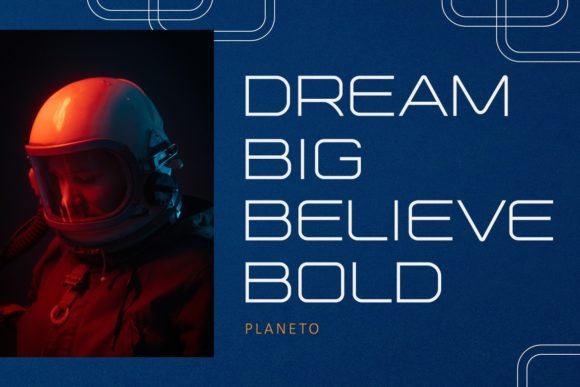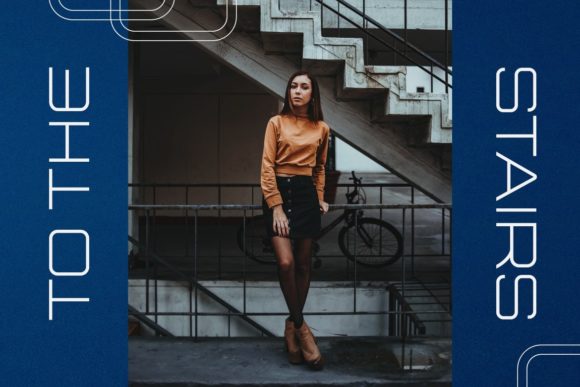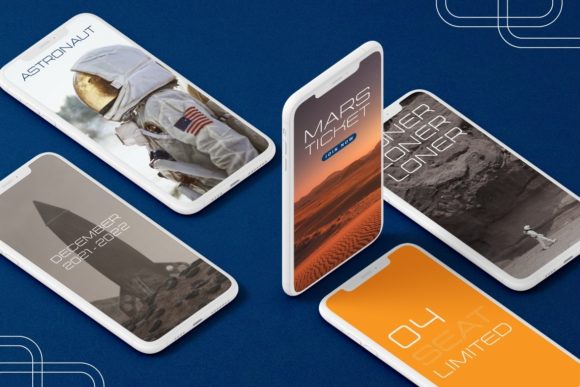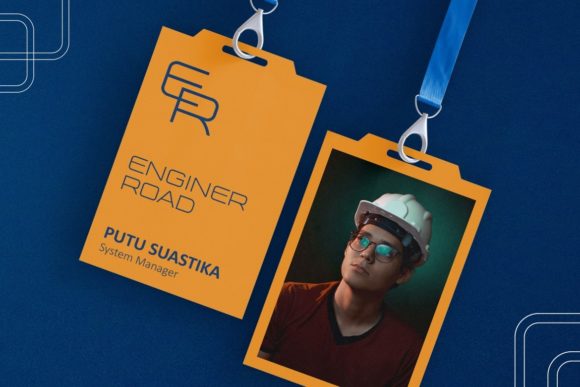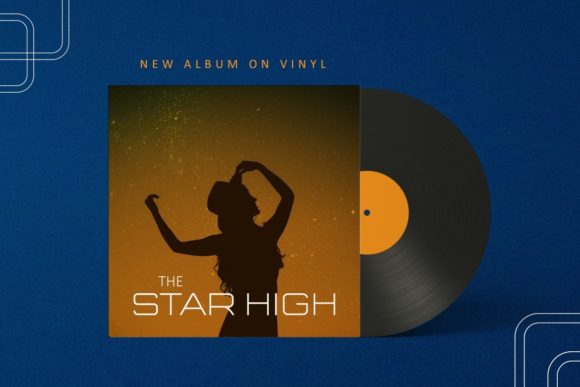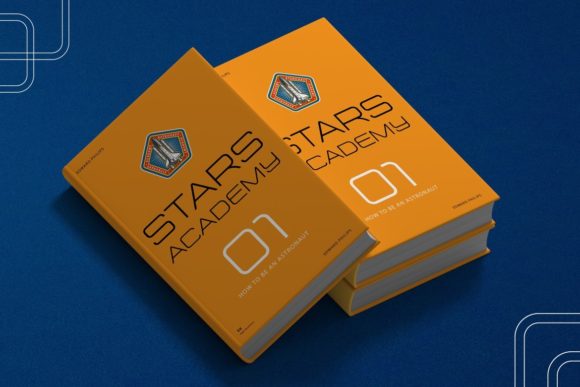
Introduction to Planeto Font
You’ve got that perfect idea for a creative project, and you can almost see it come to life in your mind’s eye. But the one thing holding you back is the perfect font to bring it all together. A good font can make all the difference, elevating your design from ordinary to extraordinary.
That’s where the Planeto Font comes in – a modern and neat sans serif font that’s perfect for just about any project. Whether you’re working on a logo, a brochure, or even a website, Planeto Font is a versatile and high-quality design resource that’s sure to impress.
With its clean lines and transparent background, Planeto Font is the perfect choice for designers who want to create something truly unique and eye-catching. And the best part? It’s available for free download, making it an invaluable resource for anyone looking to take their creative project to the next level.
Key Features of Planeto Font
- High-quality, vector-based design resource ideal for creative projects requiring intricate details.
- Transparent background allows for effortless background replacement and customization.
- Features a unique blend of futuristic and minimalist elements, perfect for adding a touch of modernity to any design project.
- Supports a wide range of languages, including Latin, Cyrillic, and Greek alphabets, making it a versatile font for global audiences.
Honest Review: Planeto Font
As a designer, I’m always on the lookout for high-quality design resources to elevate my creative projects. Recently, I stumbled upon the Planeto Font, and I’m excited to share my honest review with you.
What works well: ✨ The Planeto Font is a stunning addition to any design project. Its unique blend of futuristic and minimalist elements makes it perfect for creating visually striking compositions. The font’s high level of detail and precision ensures that it looks crisp and clear on any screen or print surface.
- High-quality design with a unique aesthetic
- Perfect for futuristic and minimalist designs
- Works well with transparent backgrounds
Any limitations: ⚠️ While the Planeto Font is an excellent choice for many design projects, it may not be suitable for all types of creative work. For example, it may not be the best choice for projects that require a more classic or traditional look. Additionally, some users may find the font’s futuristic elements too bold or overpowering.
Overall impression: I’m thoroughly impressed with the Planeto Font. Its unique design, high quality, and free download make it an excellent resource for any designer working on a creative project. Whether you’re designing a futuristic logo, a minimalist brochure, or a visually striking website, the Planeto Font is definitely worth considering.
Common Use Cases for Planeto Font
Planeto Font is ideal for creating eye-catching titles, headings, and body text for your designs. You can use it for a variety of projects, including business cards, brochures, and websites.